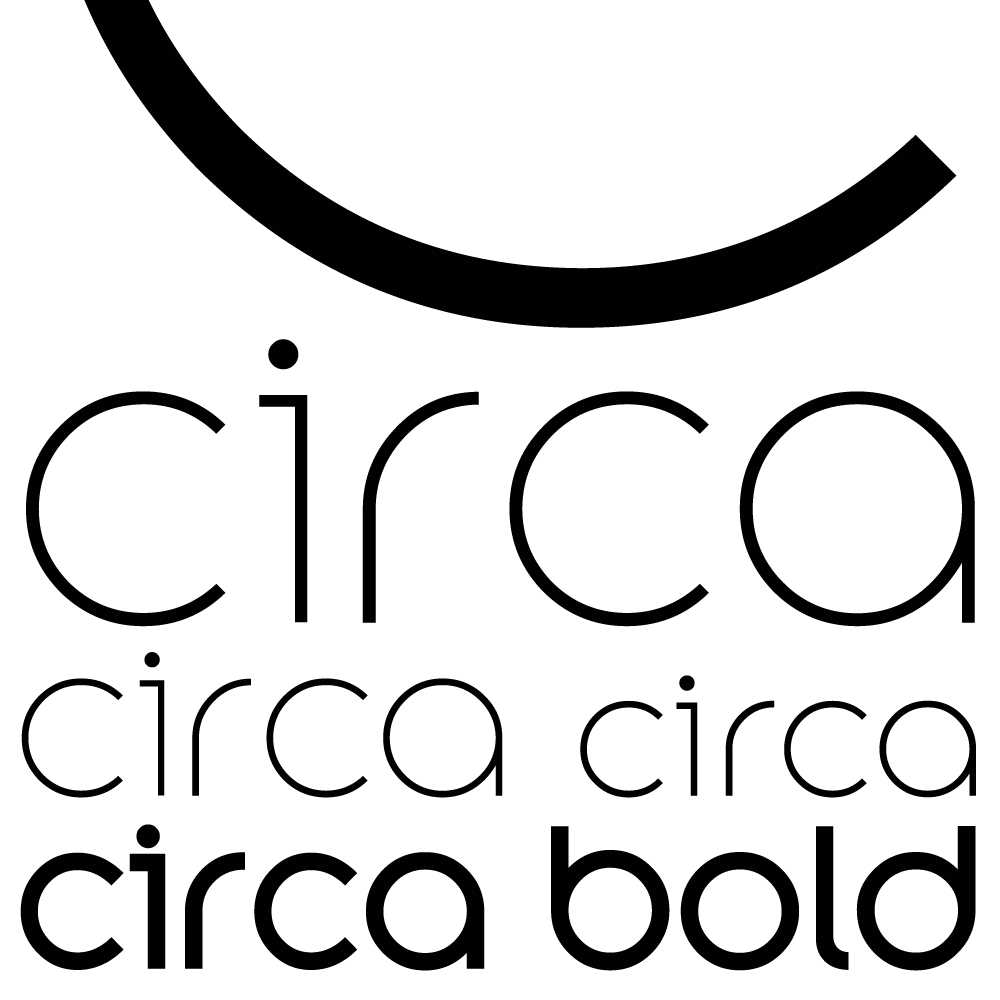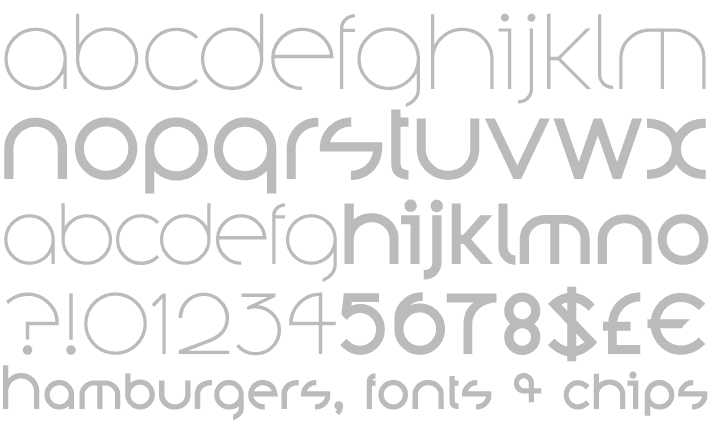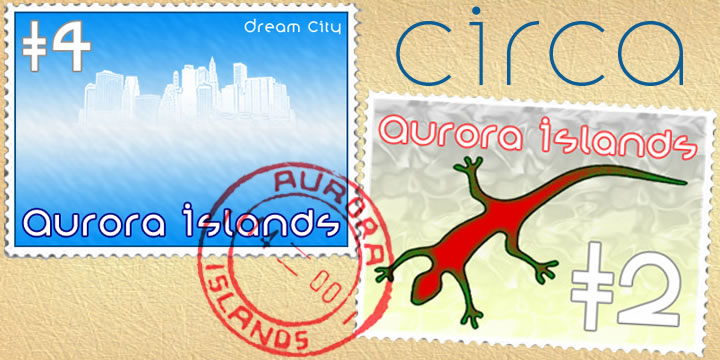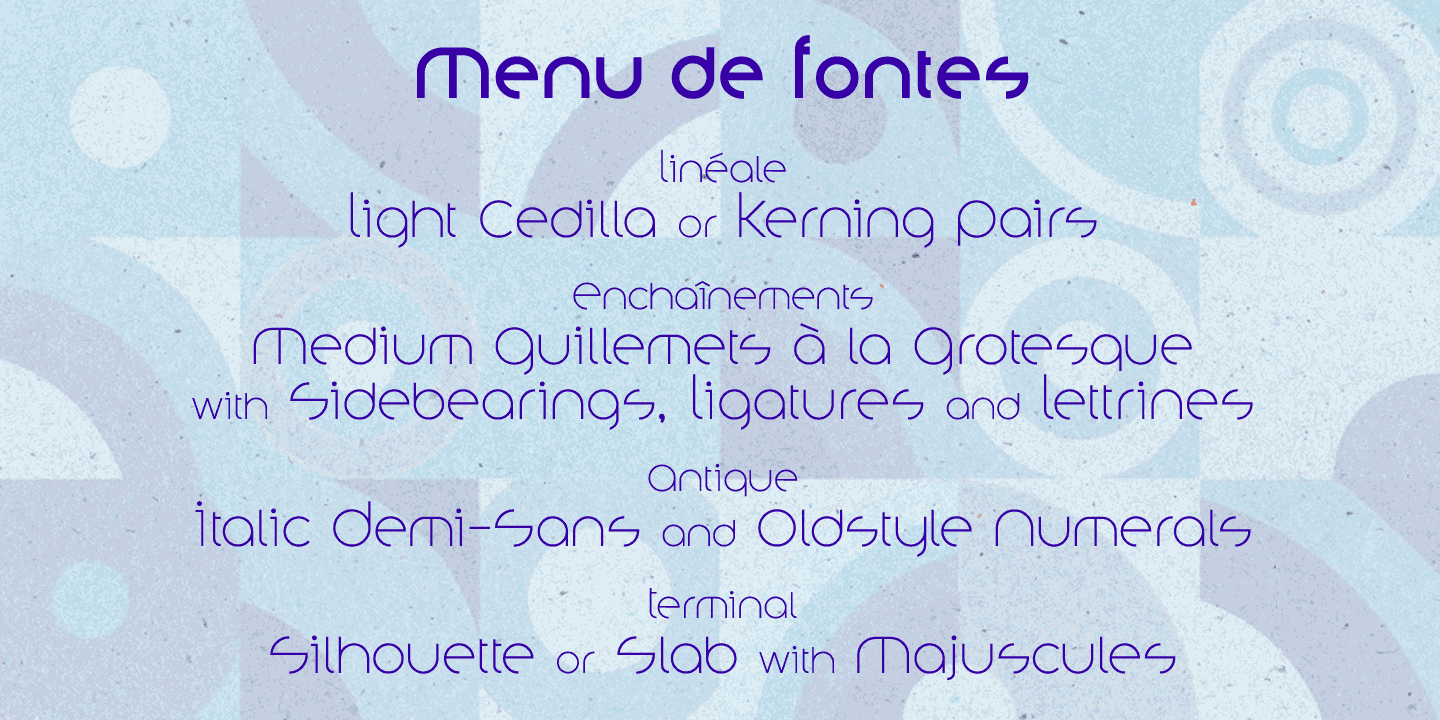
Circa
Circa is a staunchly geometric sans serif inspired by lettering in a furniture advertisement on the wall of a Paris Metro station. And circles in general. Maybe a hint of Bauhaus snuck in too. The typeface has a dangerously large x-height that could prove hazardous to inexperienced typographers.
Circa is supplied in Regular and Bold weights, plus an additional Outline version.